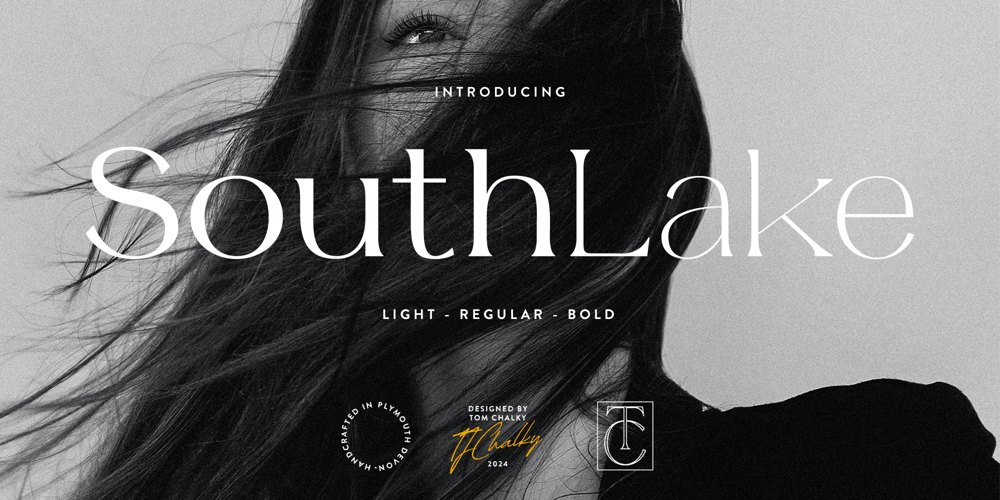
Southlake TC Font Family was designed by Tom Chalky and published by Tom Chalky. Southlake TC contains 3 styles and family package options. Introducing Southlake, your new favorite modern serif font that exudes elegance and timeless appeal. Perfectly suited for a wide range of stylish design projects, this typeface blends a classy demeanor with generous proportions to make a bold statement.Ideal for headlines, luxury branding, and editorial designs, Southlake shines when given space to breathe. With its refined appearance, this font family stands out, conveying trust, sophistication, and creativity.Quick Overview Elegant Serif Typeface Three Weights: Light, Regular, and Bold Multilingual Support (Latin 1 Glyphs)